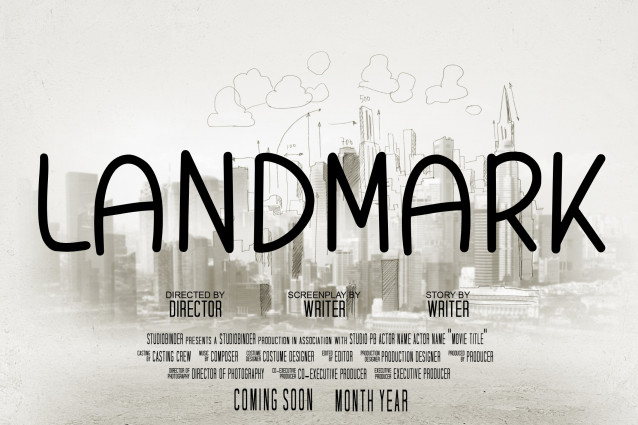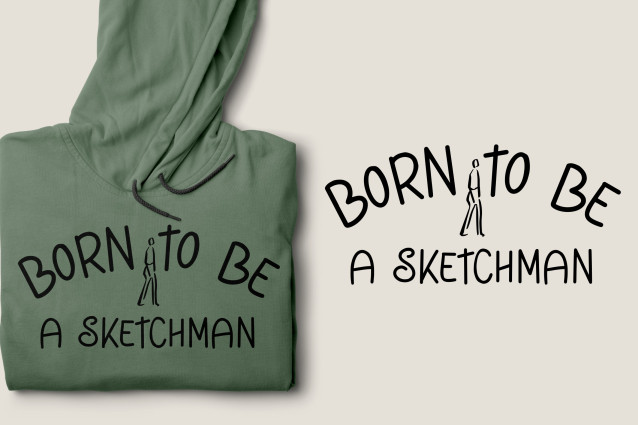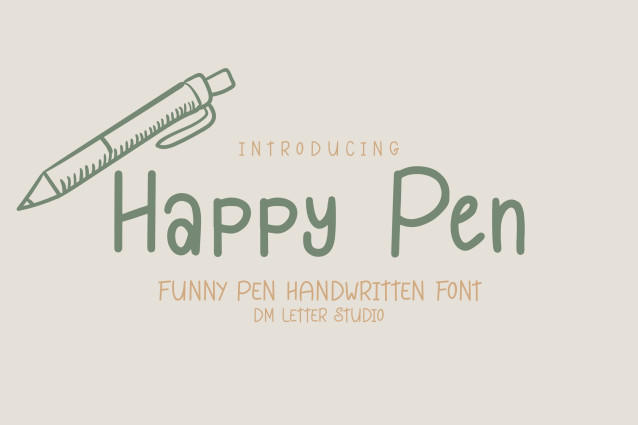
Happy Pen Font
Happy Pen Font is a lively, pen-drawn handwriting font with a cheeky grin. Every stroke feels casual and human, making headlines, stickers, and social posts read like friendly notes. If you’re after playful personality without losing readability, Happy Pen gives you that bouncy, feel-good vibe for logos, packaging, classroom prints, and everyday design.